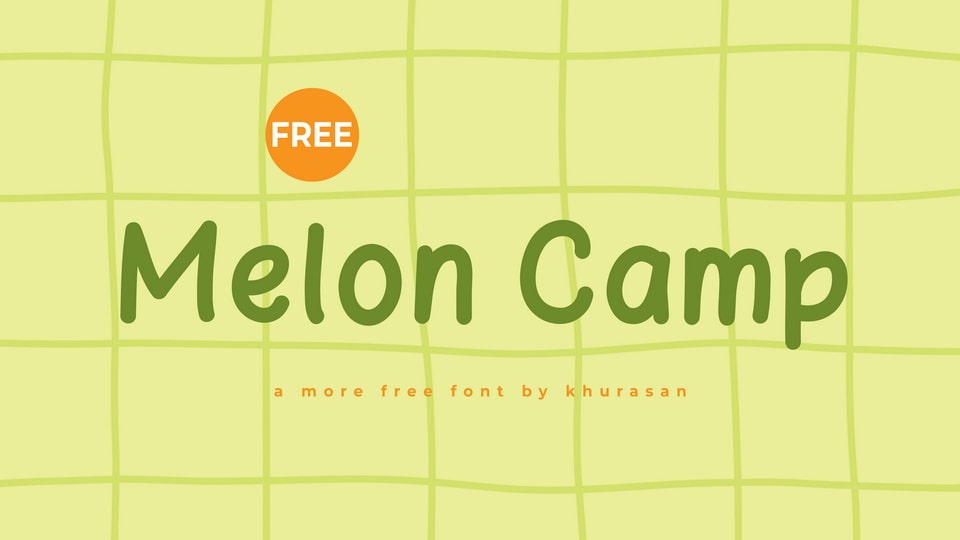
Download Melon Camp font, a soft and friendly handwritten typeface with a sweet, casual vibe. Its rounded strokes and smooth curves give off an inviting, organic charm.